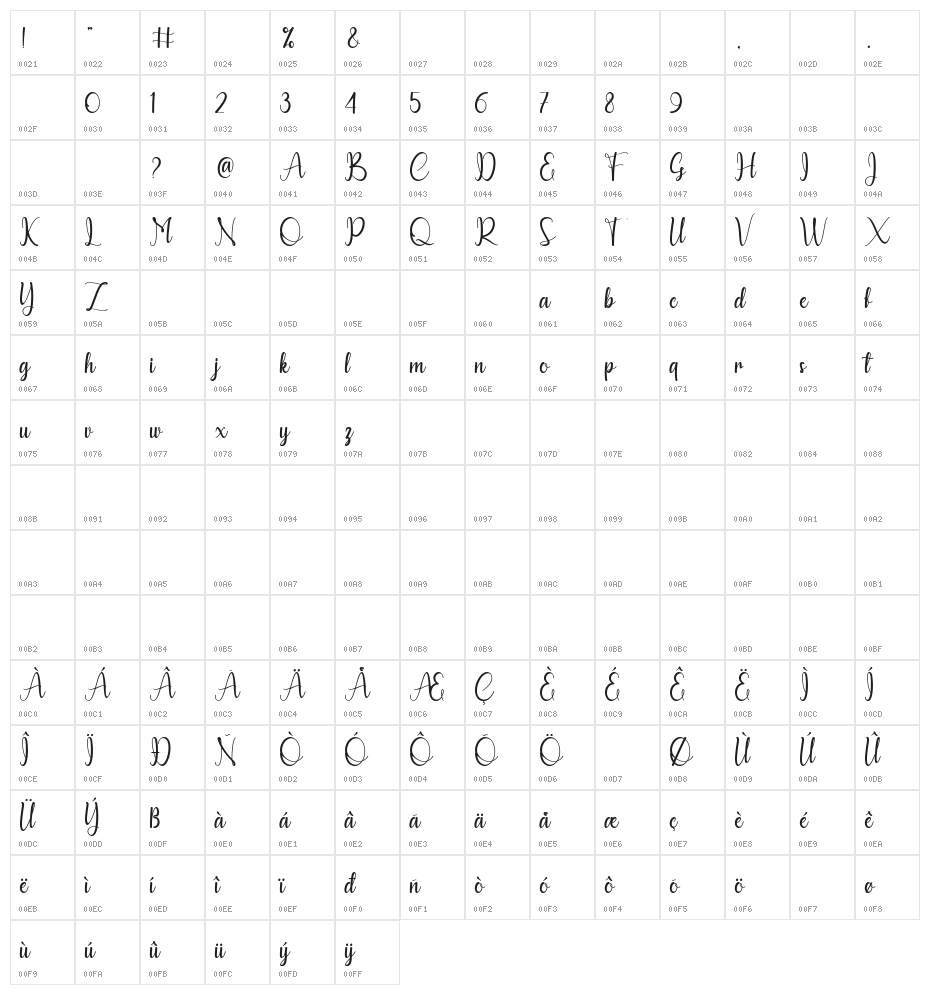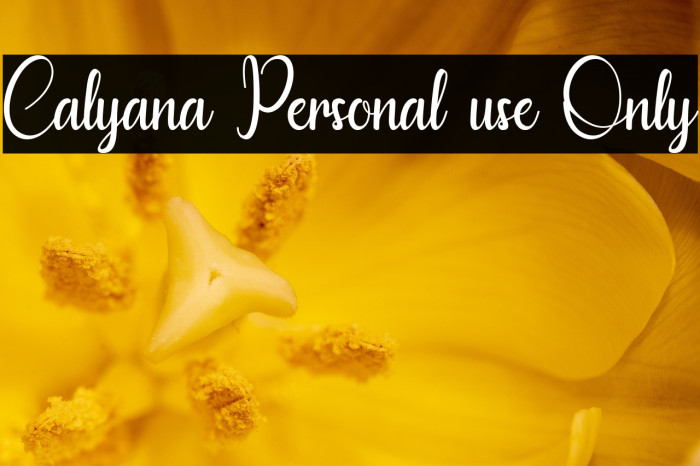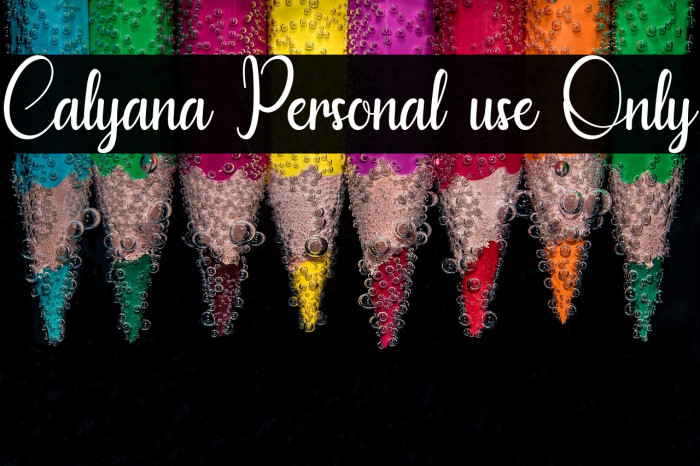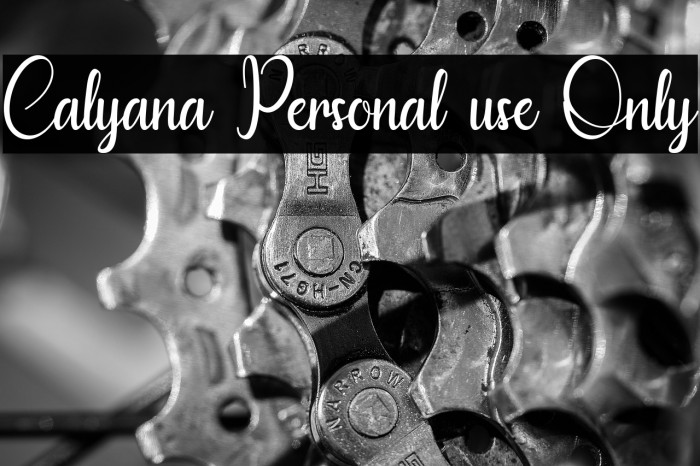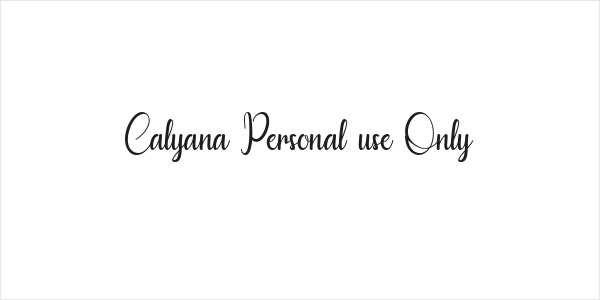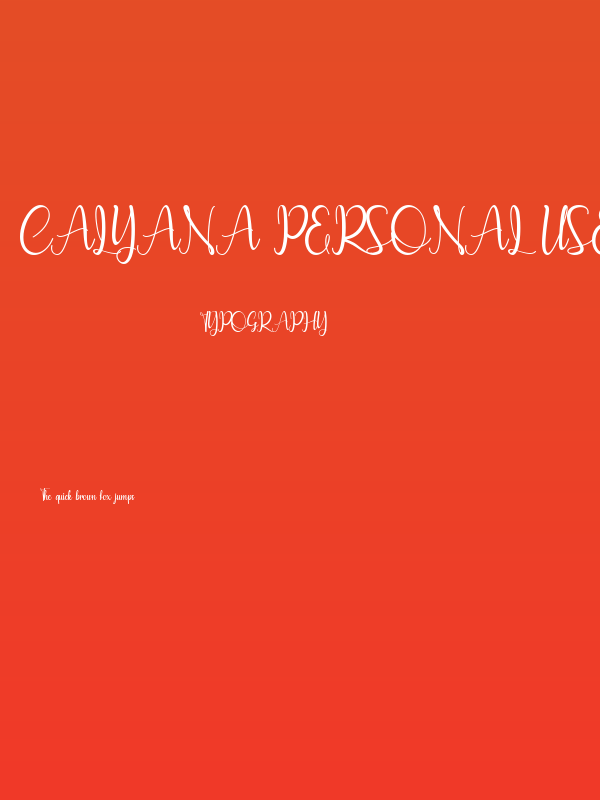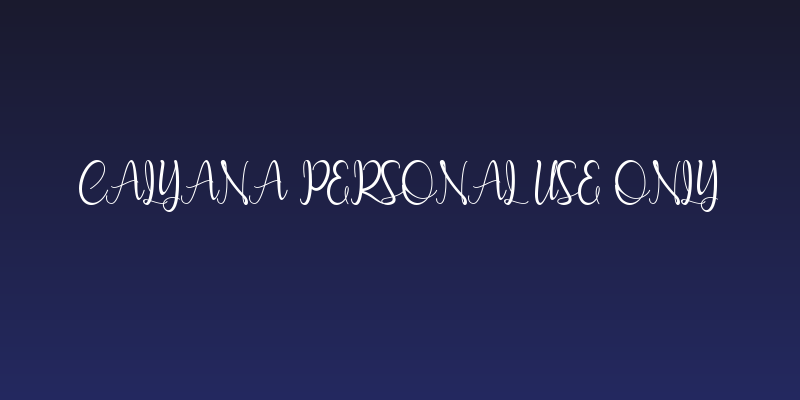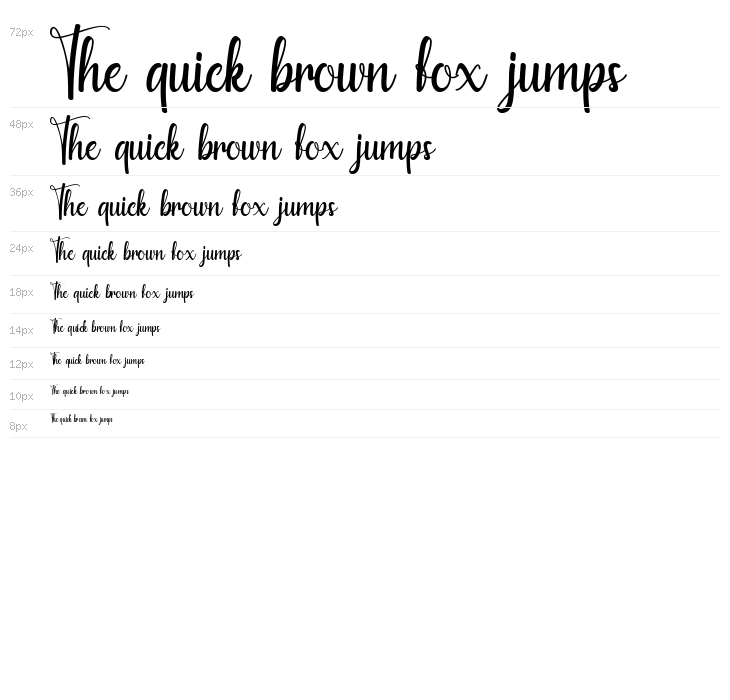
Calyana Personal use Only Font
Calyana Personal use Only Description
This font features an elegant and flowing script style with a modern touch. The uppercase letters are characterized by their intricate loops and swirls, giving them a decorative appearance. The lowercase letters maintain a smooth and connected cursive form, which adds to the font's overall fluidity. The numerals are consistent with the script style, offering a cohesive look. Special characters are designed with the same attention to detail, ensuring they blend seamlessly with the rest of the font. This font is ideal for projects that require a personal and artistic touch, such as invitations, greeting cards, or branding materials.
| Proposed Projects | Ideal for wedding invitations, greeting cards, and artistic branding. |